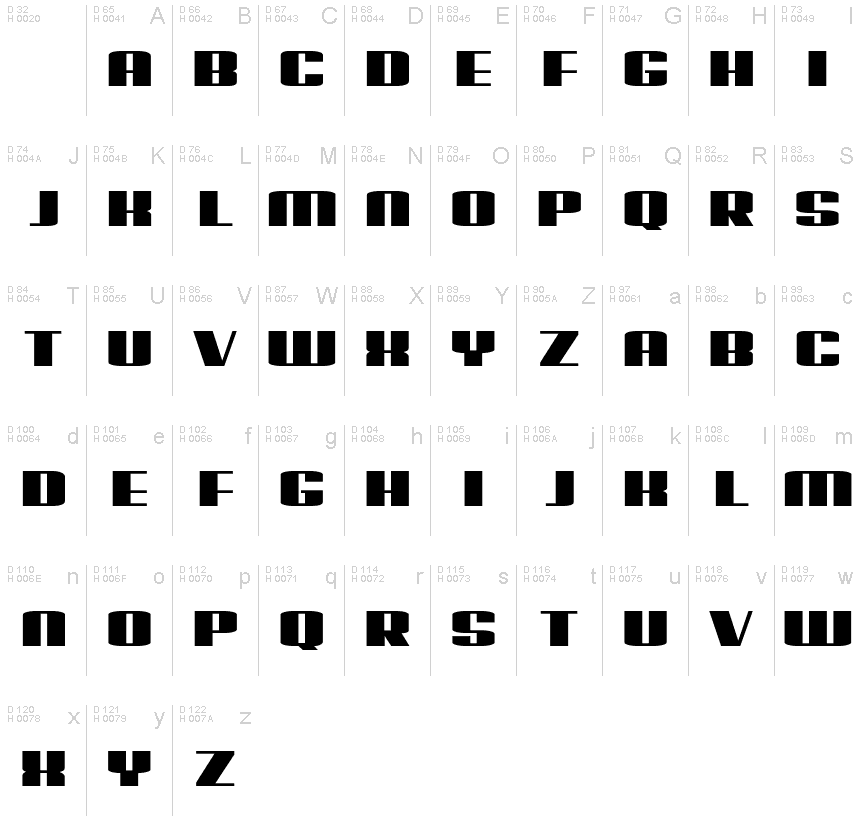
Possession Book Regular
Possession Book, a mesmerizing creation by renowned font designer Vladimir Nikolic, is an extraordinary display font that demands attention. With its extra-bold weight and expanded width, Possession Book exudes confidence and adds a touch of elegance to any project. Perfect for book covers, magazine titles, and brand logos, this font injects an aura of sophistication into your designs. Its captivating curves and commanding presence make it ideal for creating impactful posters or eye-catching advertisements. Unleash the power of Possession Book to leave a lasting impression on your audience and elevate your creative projects to new heights.
It comes in Regular, Filled, Book, Book Italic version.
Possession Book